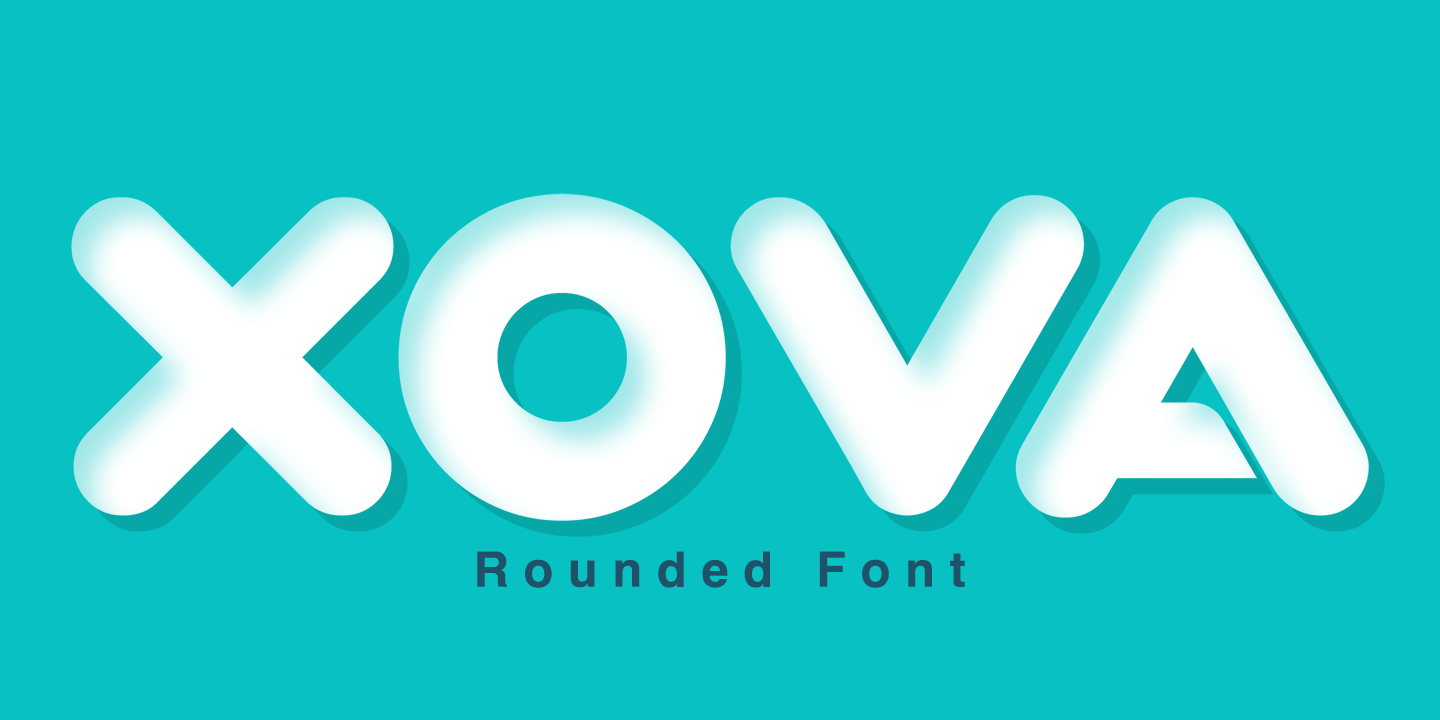
Xova Rounded Font is perfect for modern app interfaces, friendly brand logos, children's educational materials, approachable tech startups, casual gaming graphics, contemporary web design, soft product packaging, and welcoming service industry branding.
This font is exciting because it combines contemporary innovation with warm approachability and friendly sophistication. Xova Rounded Font features smooth, rounded letterforms with modern geometric precision that create welcoming user experiences, making it ideal for projects that require both cutting-edge appeal and human-centered design.
The Xova Rounded Font family includes regular, light, medium, bold, and extra-bold variants, along with contemporary alternates and friendly ligatures that enhance its approachable character. Each weight maintains the font's welcoming aesthetic while providing different levels of modern expression for various tech and user-friendly design applications.
Whether you're developing innovative tech brands, creating user-friendly digital interfaces, or designing approachable marketing materials, Xova Rounded Font Free Download delivers exceptional modernity and friendly appeal. Its distinctive contemporary style makes it an excellent choice for designers seeking to add modern warmth and accessible sophistication to their projects. The font's versatility extends from mobile app interfaces to startup branding, ensuring consistent performance across all modern applications. With its precisely crafted letterforms and human-centered proportions, this typeface provides professional results that connect with users emotionally and establish trustworthy brand presence with its unmistakable friendly character and contemporary innovation.